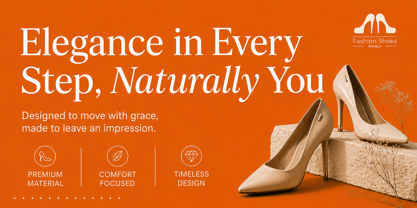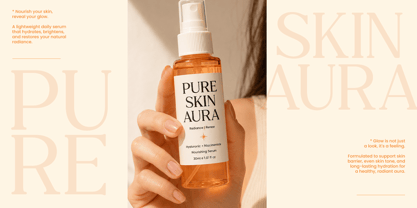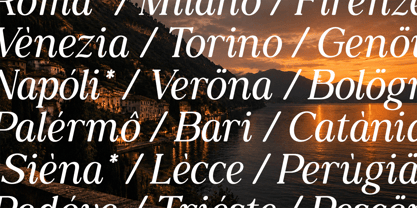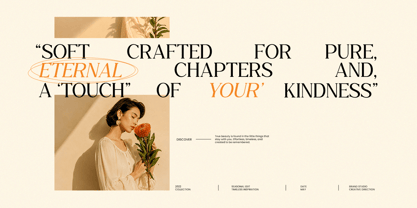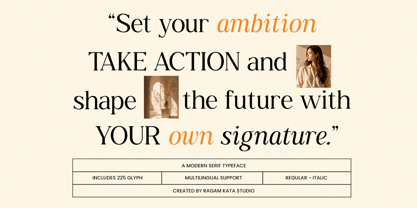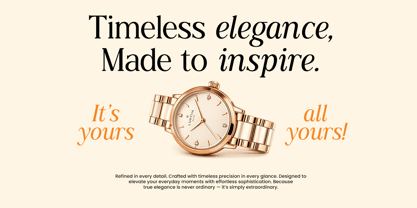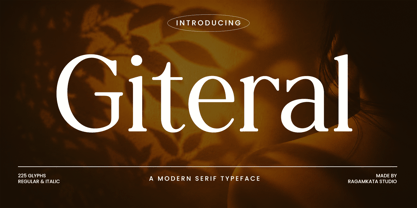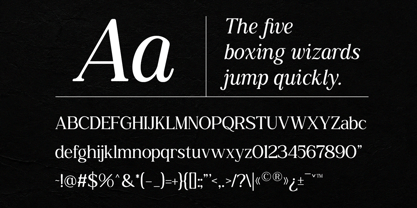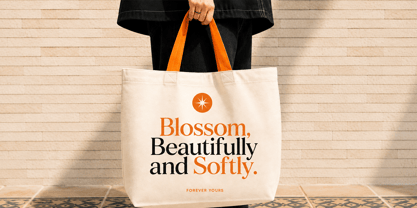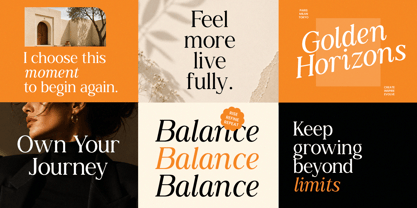
Giteral
by RagamKata
Giteral is an elegant modern serif typeface crafted to bring sophistication and timeless beauty to contemporary design projects. Featuring refined letterforms, delicate curves, and graceful contrast, this font delivers a luxurious aesthetic that feels both classic and modern. Its balanced proportions create a polished appearance, making every word look stylish and memorable.
Designed for premium branding and editorial excellence, Giteral combines high-fashion elegance with exceptional readability. The subtle details and sophisticated serif structure make it perfect for creating a strong visual identity while maintaining a soft and inviting character. Whether used in large headlines or refined body text, it adds a sense of prestige and professionalism to any composition.
Ideal for luxury branding, fashion campaigns, beauty products, wedding stationery, magazine layouts, packaging, invitations, social media content, logos, and upscale marketing materials.
Giteral includes multilingual support, numerals, punctuation, and special characters, making it a versatile choice for designers seeking a premium serif typeface.
• Giteral Regular Style
• Giteral Italic Style
• Uppercase and Lowercase
• Number, Symbol, and Punctuation
• Multi Language Support